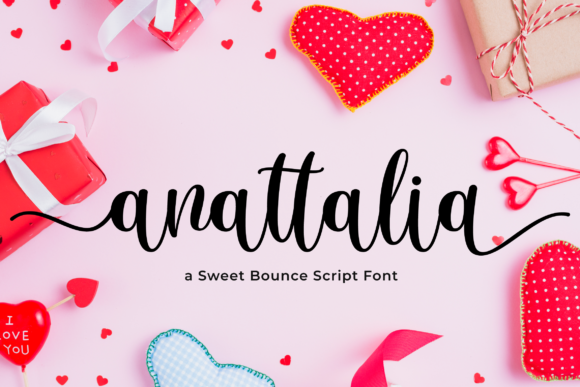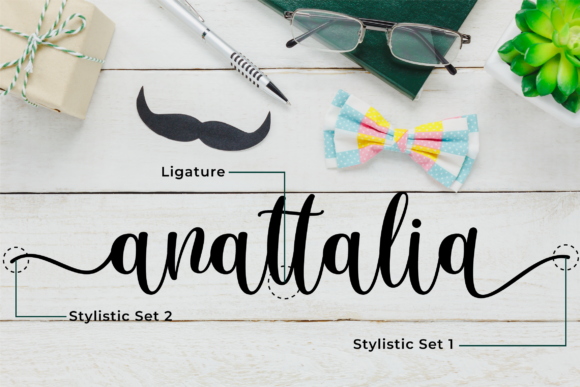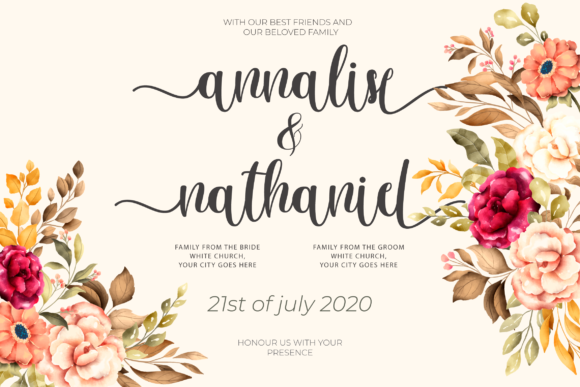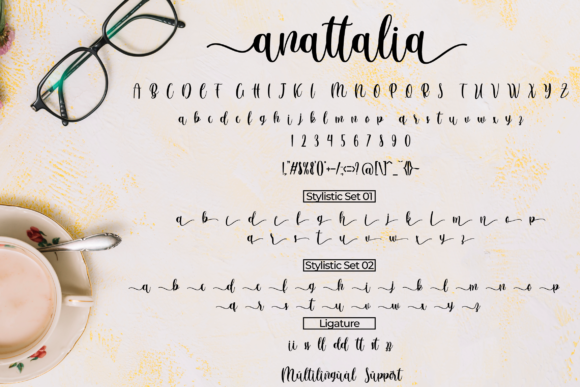
Anattalia Font
About Anattalia Font
Anattalia is cute and lovely, but also fancy. This versatile script font has a wide range of applications ranging from greeting cards to headlines and is guaranteed to add a romantic touch to your next design.